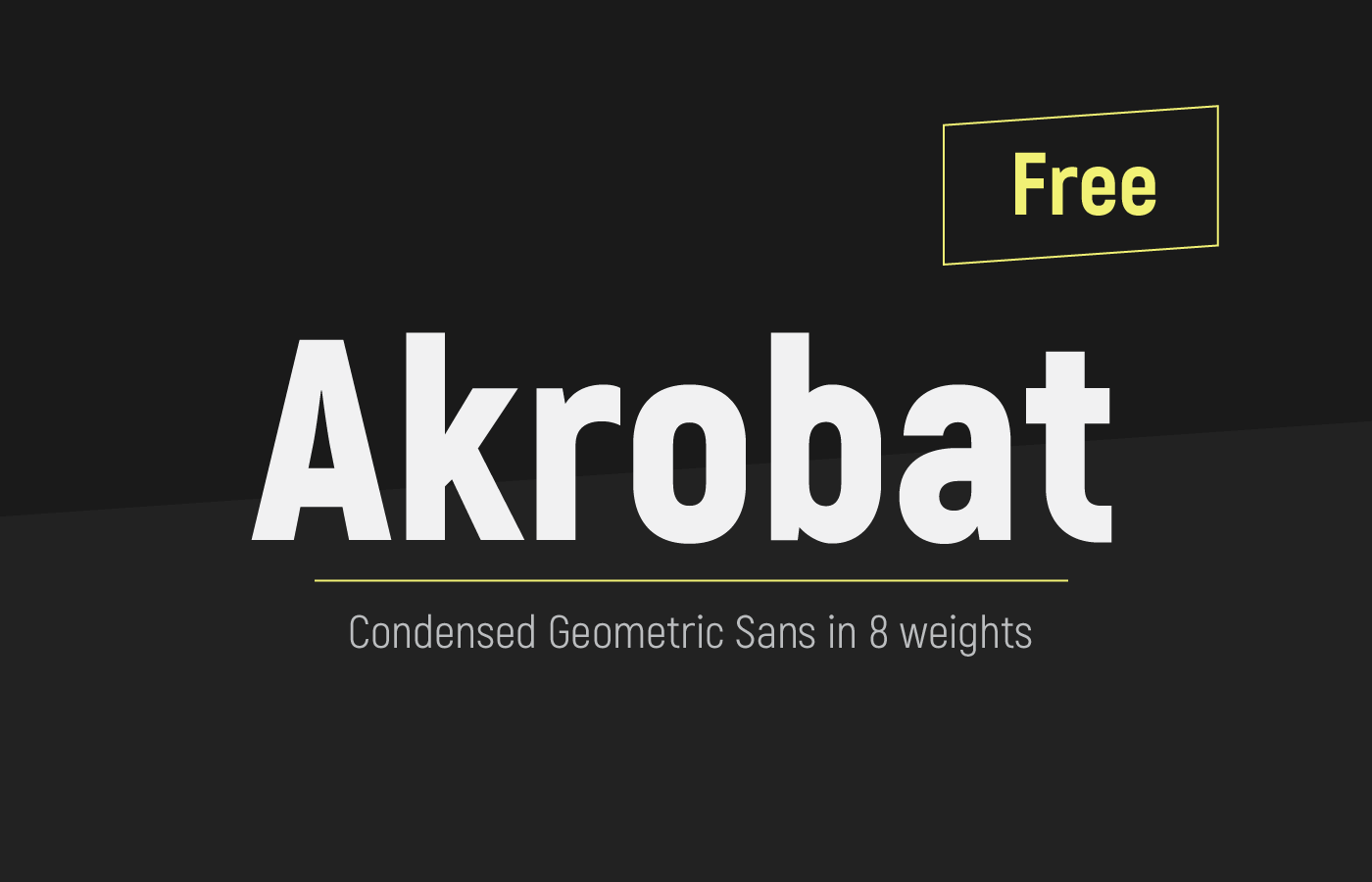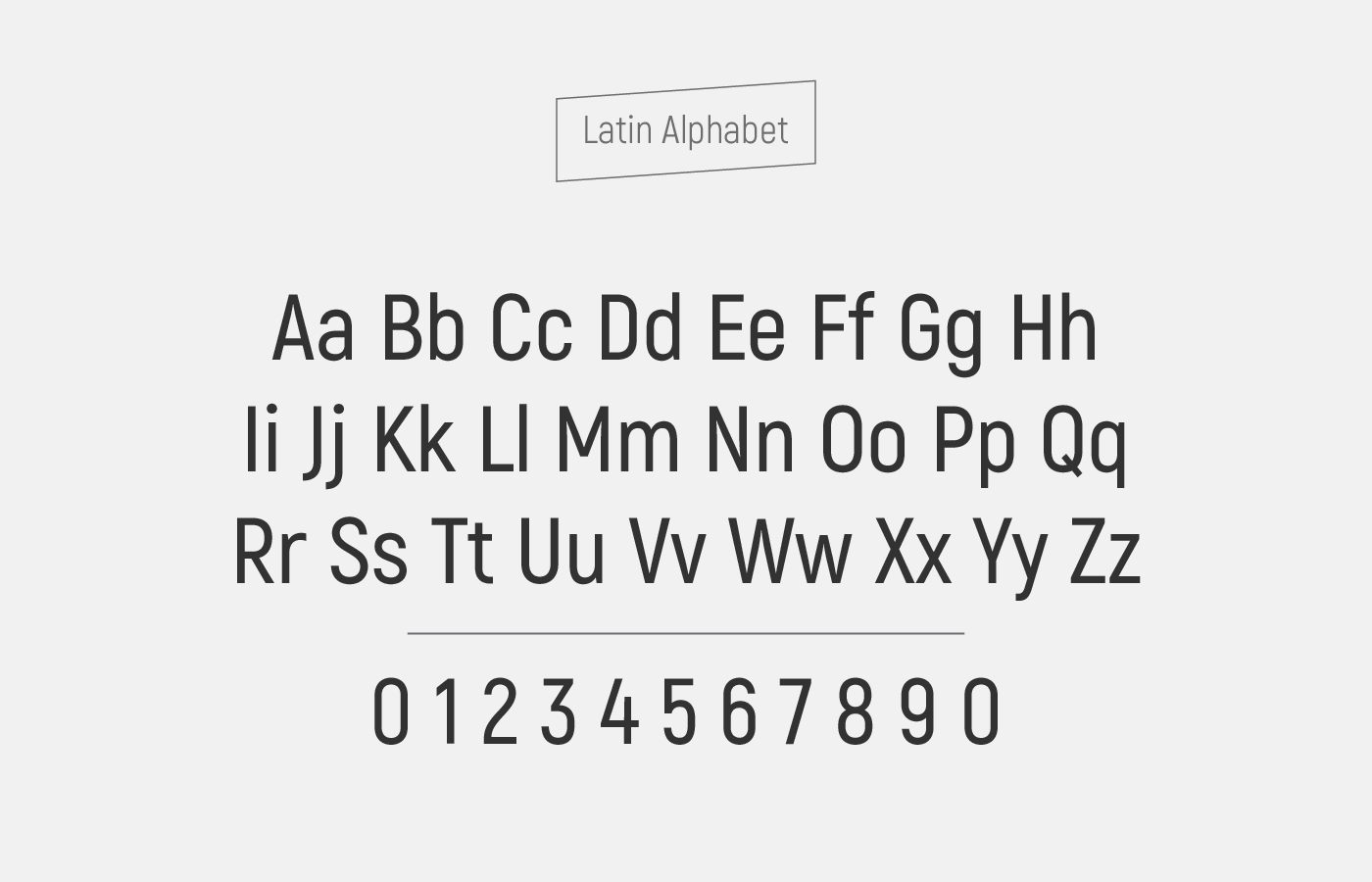
Akrobat Free Font
Akrobat free font it’s a very complete typeface available in 8 weights from thin to black, containing more than 500 glyphs with a wide range of languages – extended Latin and Cyrillic character support as well as Bulgarian localization features. With a very elegant look it will be great on headlines, posters and other typographic compositions. Designed by Plamen Motev, it’s available for personal and commercial use.